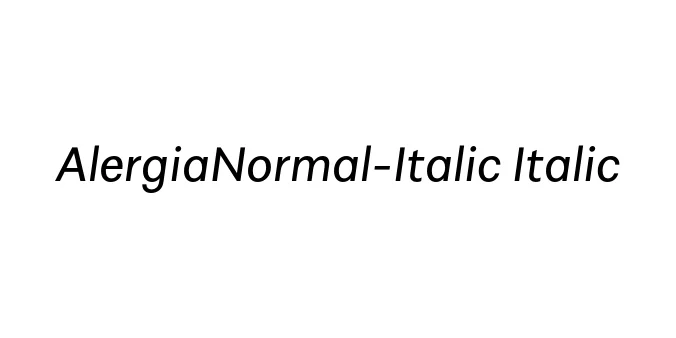
AlergiaNormal-Italic Italic
Designed by Mateusz Machalski
Alergia Normal Italic is a sophisticated typeface designed by the renowned Polish type designer Mateusz Machalski. It belongs to the broader Alergia font family, which serves as a hybrid between classic geometric grotesques and contemporary linear styles. This specific italic weight offers a subtle, rhythmic slant that enhances readability while maintaining the sharp, clean lines characteristic of modern professional typography.
The design of Alergia Normal focuses on versatility, making it suitable for both high-impact display purposes and long-form text settings. Its unique character stems from a balanced combination of geometric precision and humanistic proportions. Whether used in digital interfaces or print media, this font provides a high-end, premium feel that elevates any brand identity or editorial layout.
AlergiaNormal-Italic Italic Best Uses
Perfect for magazines and digital articles requiring a modern edge.
Ideal for tech startups and luxury brand identities seeking a premium look.
High legibility makes it excellent for UI/UX elements and body text.
Helps stand out in print and social media campaigns with its clean aesthetic.